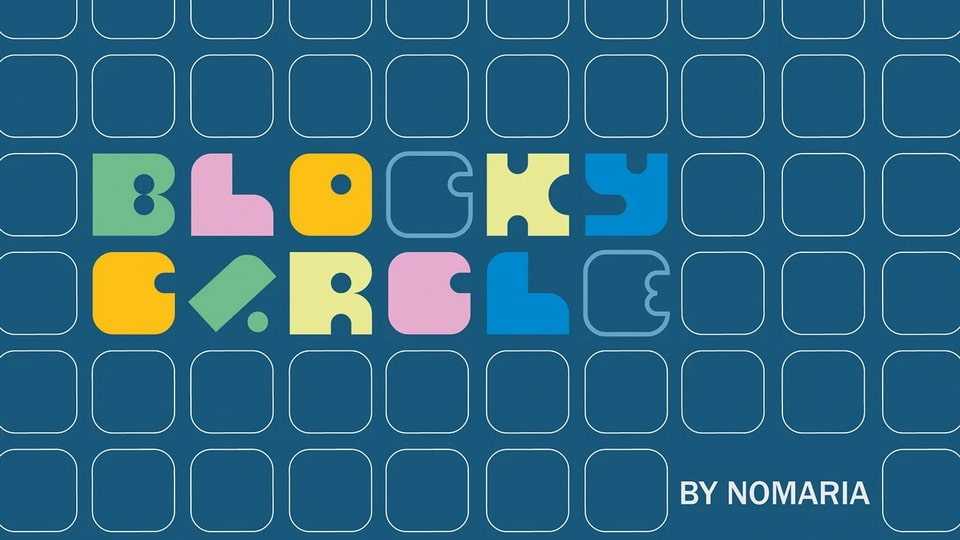
Download Blocky Circle font, a display typeface created using the basic forms and the principle of a simple construction kit. It’s perfect for bold headlines or posters.
Designer: Maria Mamonova